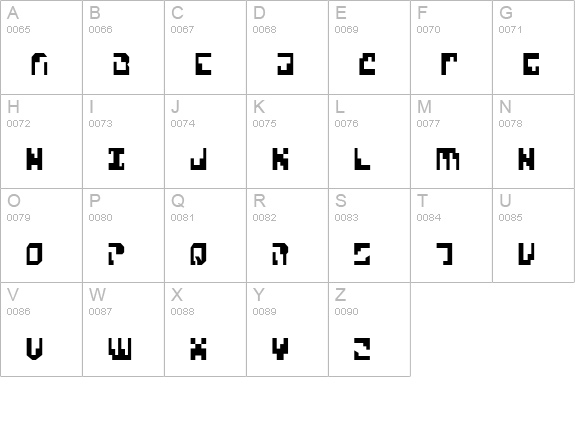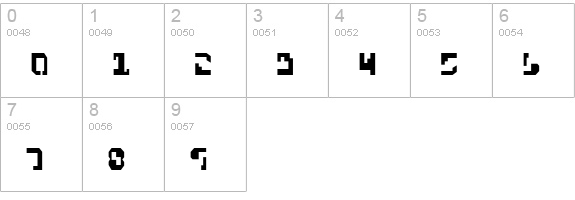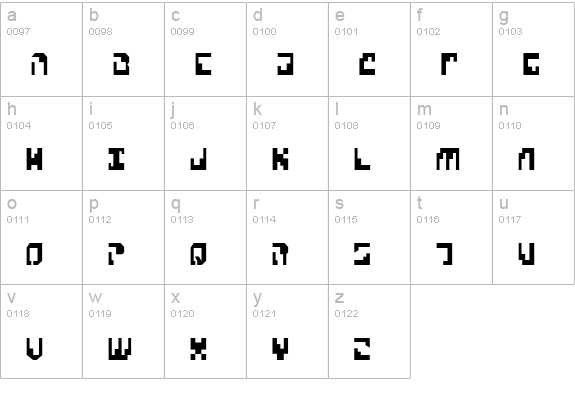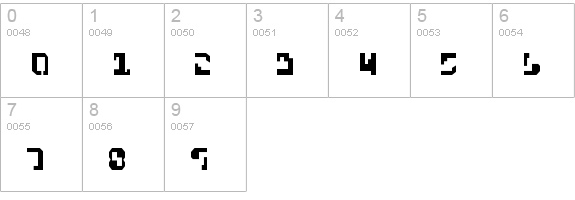
Xenophobia Condensed is a distinctive, condensed-width variant in the Xenophobia typeface family \xE2\x80\x94 well suited to design and typography projects.
Xenophobia Condensed font is a striking typeface that exudes a sense of modernity and sophistication. Its sleek lines and bold letterforms make it perfect for creating eye-catching designs that demand attention. The condensed style adds a unique flair to any project, whether it be for branding, advertising, or editorial purposes. This versatile font is designed to make a statement while maintaining readability, making it ideal for headlines, titles, and other prominent text elements. Its sharp edges and clean design give it a contemporary edge that sets it apart from other fonts. Best of all, Xenophobia Condensed font is available for free download at FontsMarket.com. This means you can easily access this stylish typeface and incorporate it into your designs without any cost. Don't miss out on this opportunity to enhance your projects with the bold and modern aesthetic of Xenophobia Condensed font. Download it today and elevate your design game!